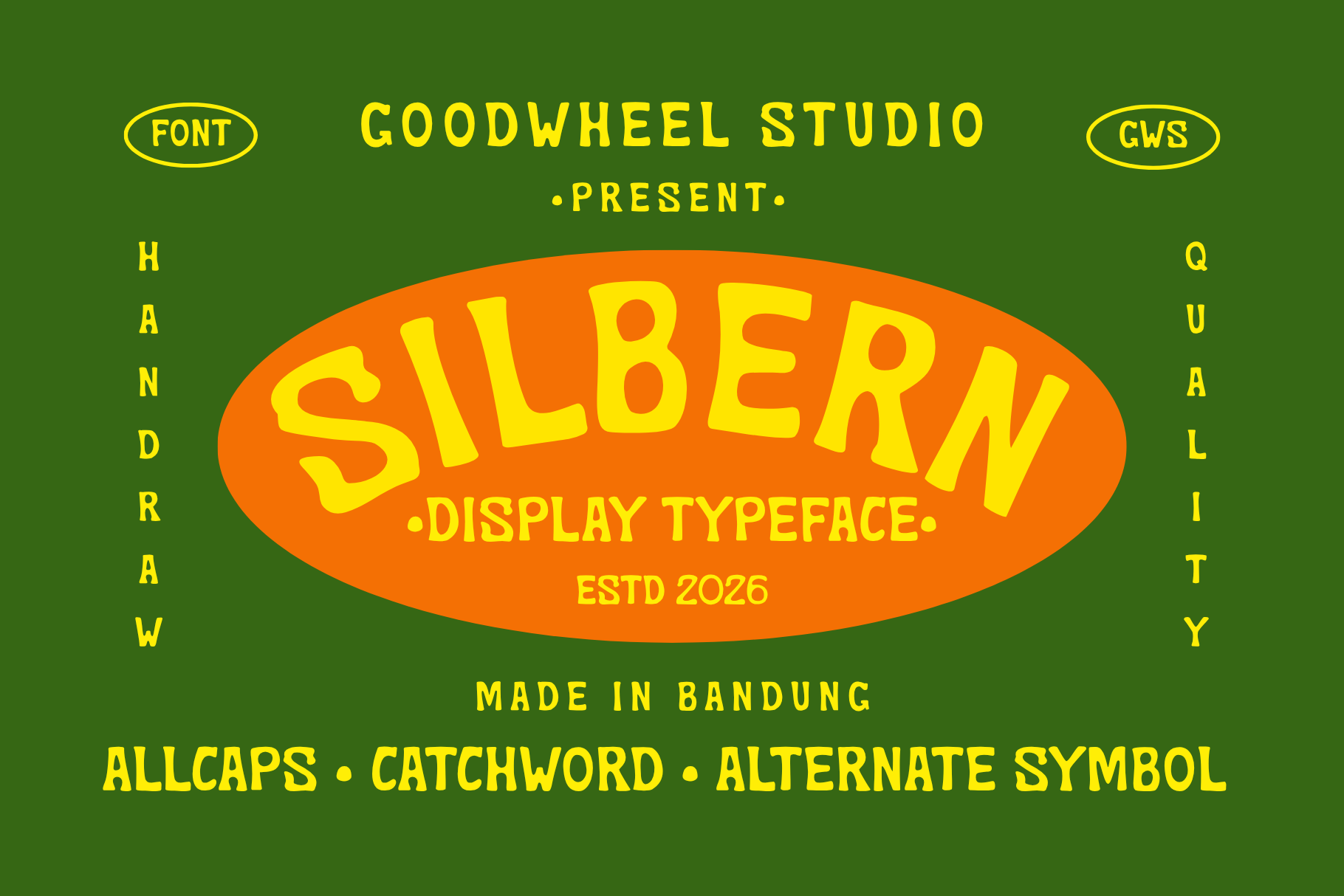
Silbern | Handdrawn Typeface
Silbern is a bold handcrafted display font inspired by vintage signage, classic diners, and retro advertising. Featuring rounded edges, playful curves, and a strong handmade character, it creates eye-catching headlines with warmth and personality. Perfect for logos, food packaging, restaurant branding, posters, menus, merchandise, social media graphics, and editorial designs, Silbern delivers a nostalgic yet modern aesthetic. Its all-caps letterforms maintain excellent readability while adding a unique handcrafted touch to every composition. Complete with uppercase letters, numbers, punctuation, multilingual support, and essential symbols, Silbern is an excellent choice for designers seeking bold typography with timeless charm and authentic creative appeal.